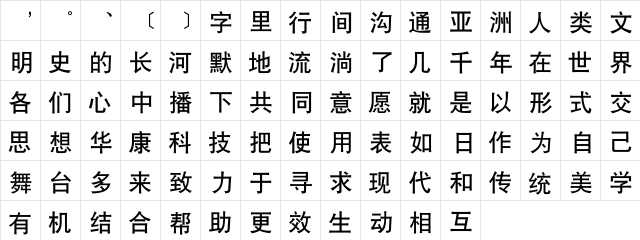
DFHei1B-GB Regular
Design Context for DFHei1B-GB Typeface
DFHei1B-GB offers clean, dependable letterforms without strong stylistic allegiance, making it a practical choice for designers who need flexibility.